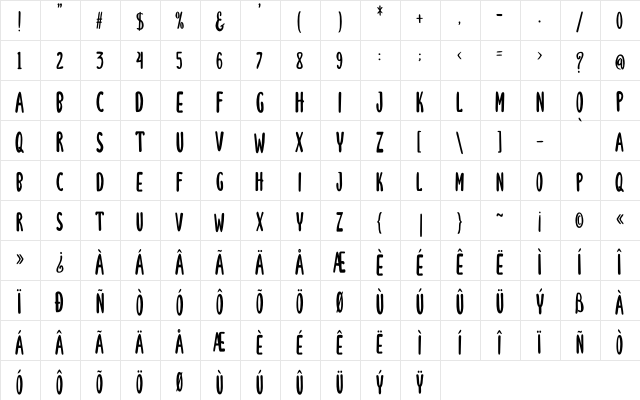
Lunarie ExtCond Regular
| Designer | Solidtype |
Design Context for Lunarie ExtCond Typeface
Lunarie ExtCond takes a measured approach to typography — its balanced proportions and neutral character make it a reliable workhorse for both digital and print work. The condensed width makes it efficient for tight spaces without sacrificing legibility.